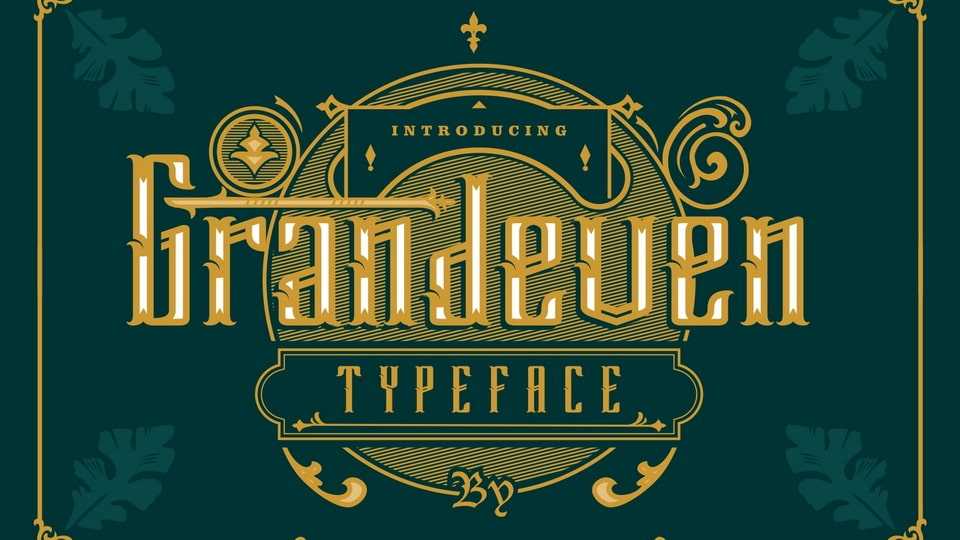
Download Grandeven font, a decorative typeface vintage/retro feel. You can mix and match the letters and combine them with borders so that you’ll get a stylish look.
Designer: Pollux of Geminorum